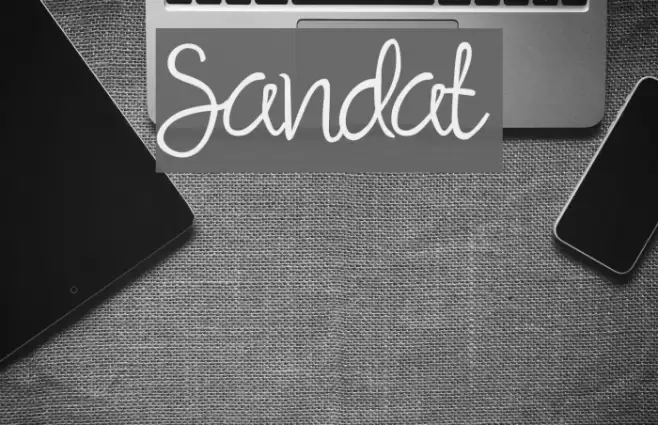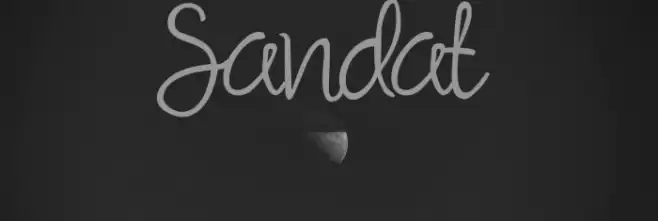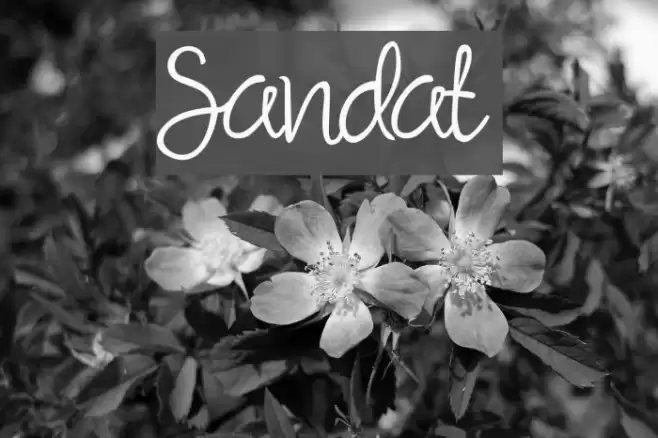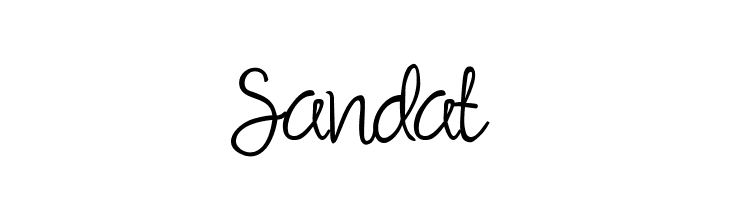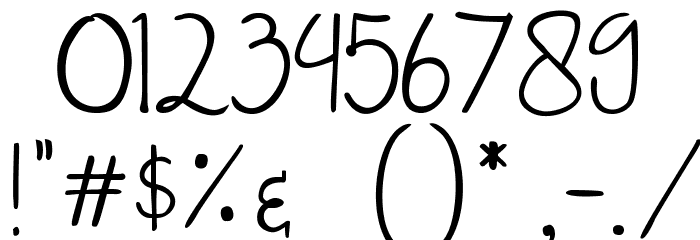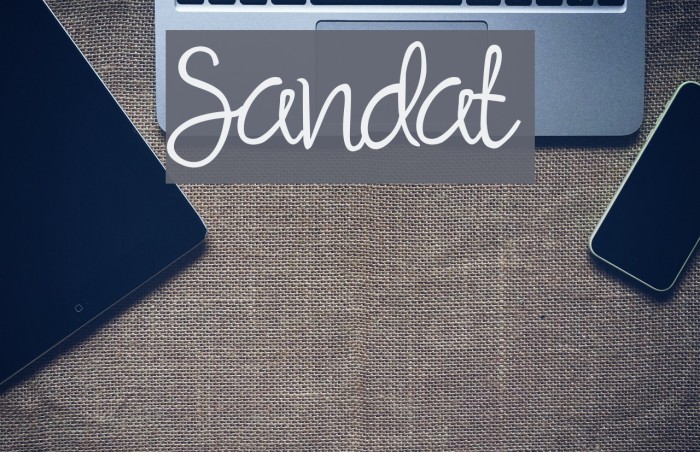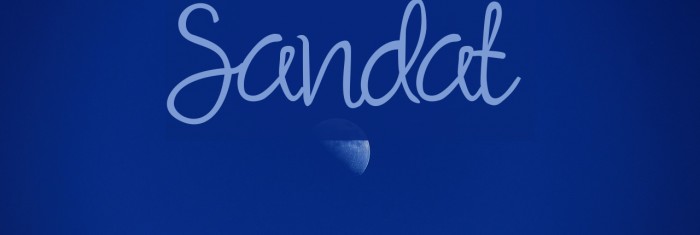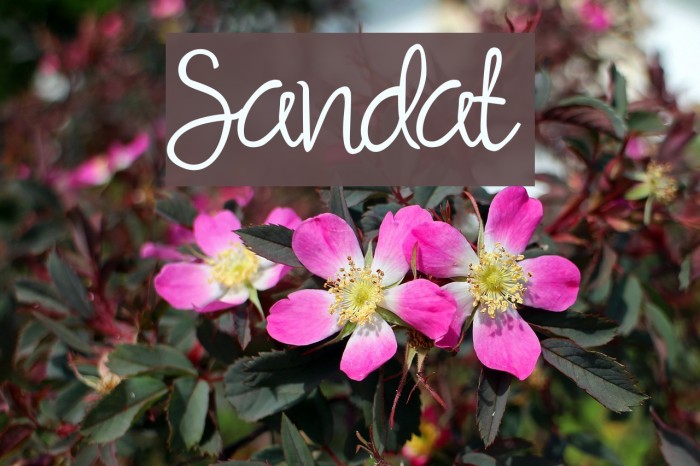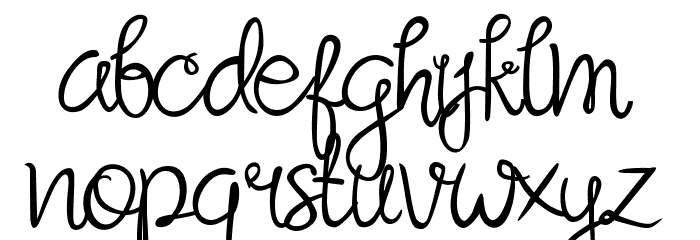
Sandat Font
Sandat Description
This font exhibits a playful and whimsical script style, characterized by its fluid, looping strokes and elegant curves. The uppercase and lowercase letters maintain a consistent flow, with some letters featuring unique flourishes that add to its charm. The numbers are clear and maintain the same playful style, making them easily readable. Special characters are creatively integrated, matching the overall aesthetic. This font is ideal for projects that require a touch of elegance and creativity, such as invitations, greeting cards, and artistic branding.
A playful and whimsical script font with elegant curves and fluid strokes from Handwritten fonts.
- Proposed Projects: Ideal for invitations, greeting cards, artistic branding, and creative projects.
- Use Case: Logos, Headlines, Artistic projects